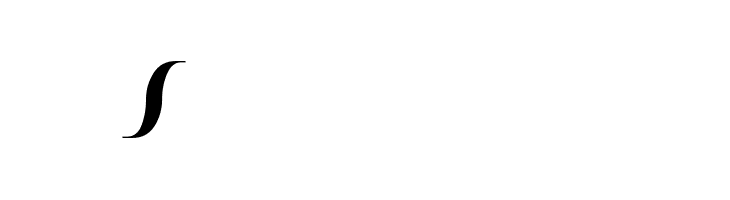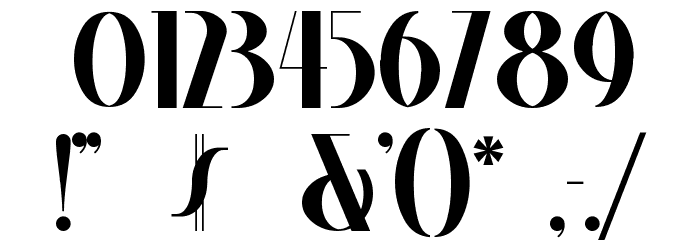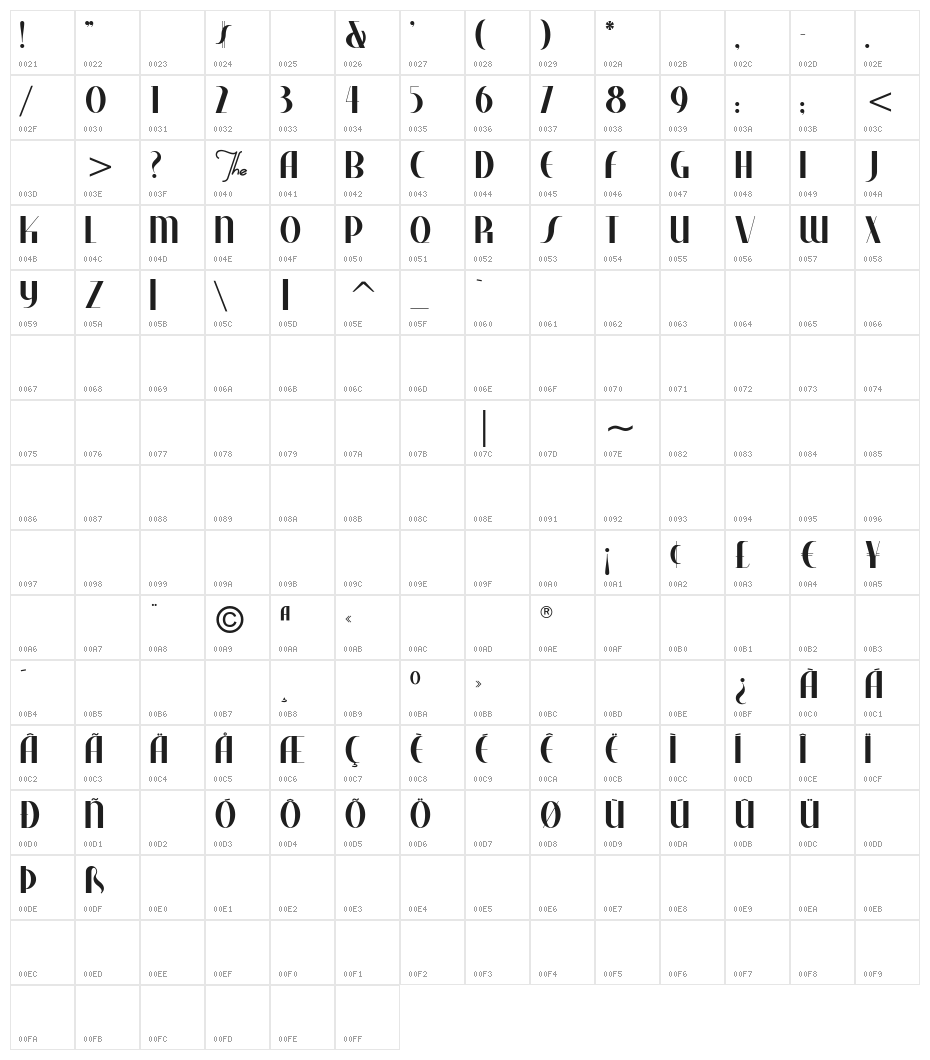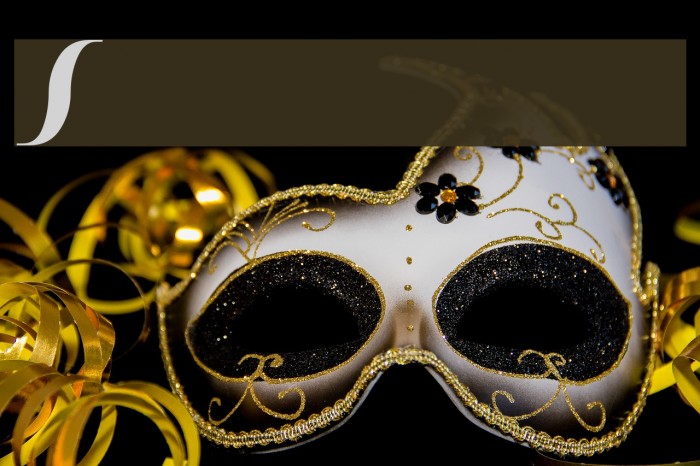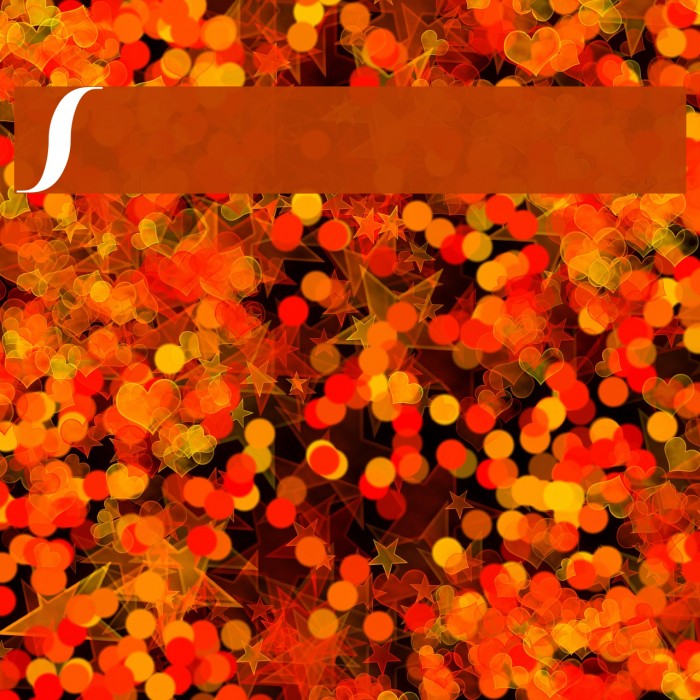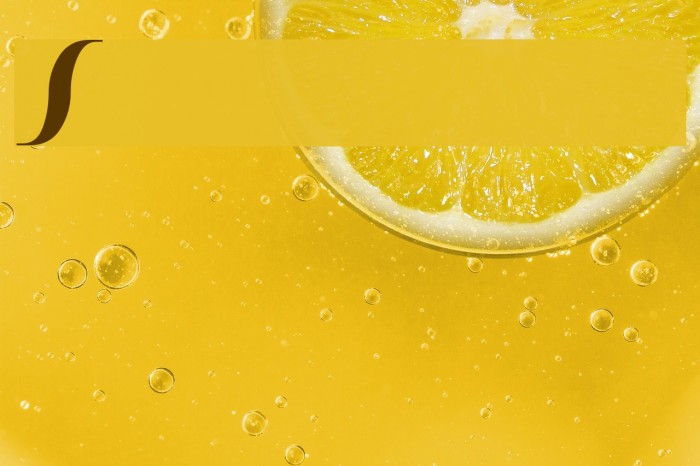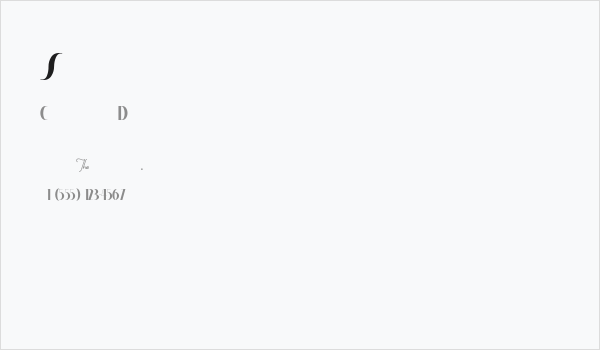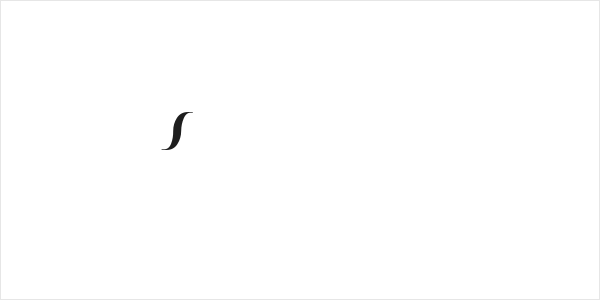
Studebaker Font
Studebaker Description
This font features a bold and striking design with a high contrast between thick and thin strokes, creating a dramatic and elegant appearance. The characters have a distinct Art Deco influence, with geometric shapes and a sense of luxury and sophistication. The uppercase letters are particularly eye-catching, with their elongated forms and sharp angles. The numerals and special characters maintain the same stylistic elements, ensuring consistency throughout. This font is ideal for making a statement and drawing attention.
| Overall Style | Art Deco, Elegant |
| Proposed Projects | Ideal for luxury branding, fashion magazines, event invitations, and poster designs. |